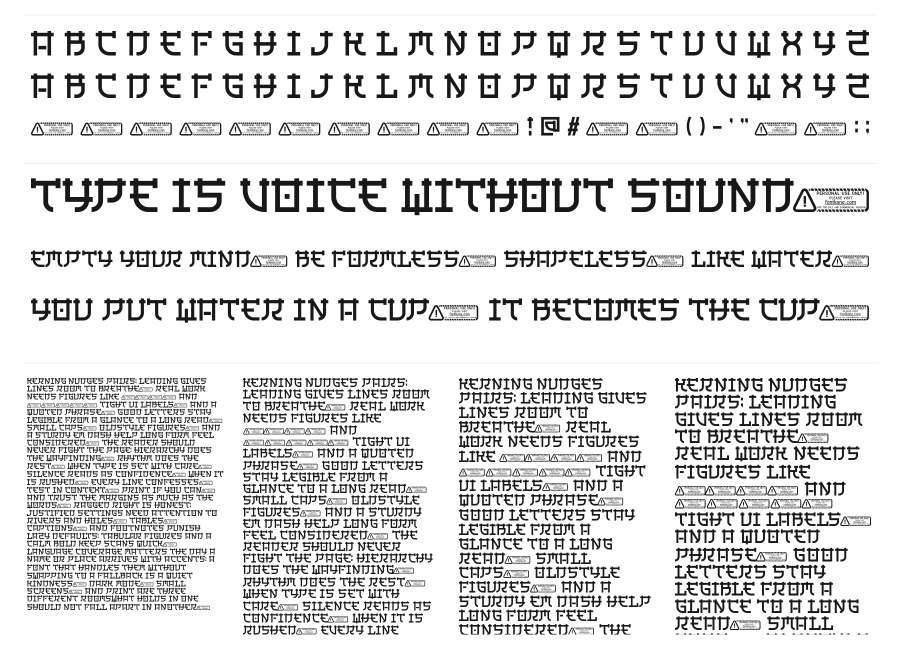
Japan Tokyo
Japan Tokyo is a heavy geometric display font built on a strict square grid with angular construction inspired by East Asian logographic typography. Every character is formed from thick, monoweight strokes with sharp corners and precise notched cutouts that create a pixelated, urban energy. It carries a distinctly Tokyo street aesthetic suited to gaming, music, and fashion work.